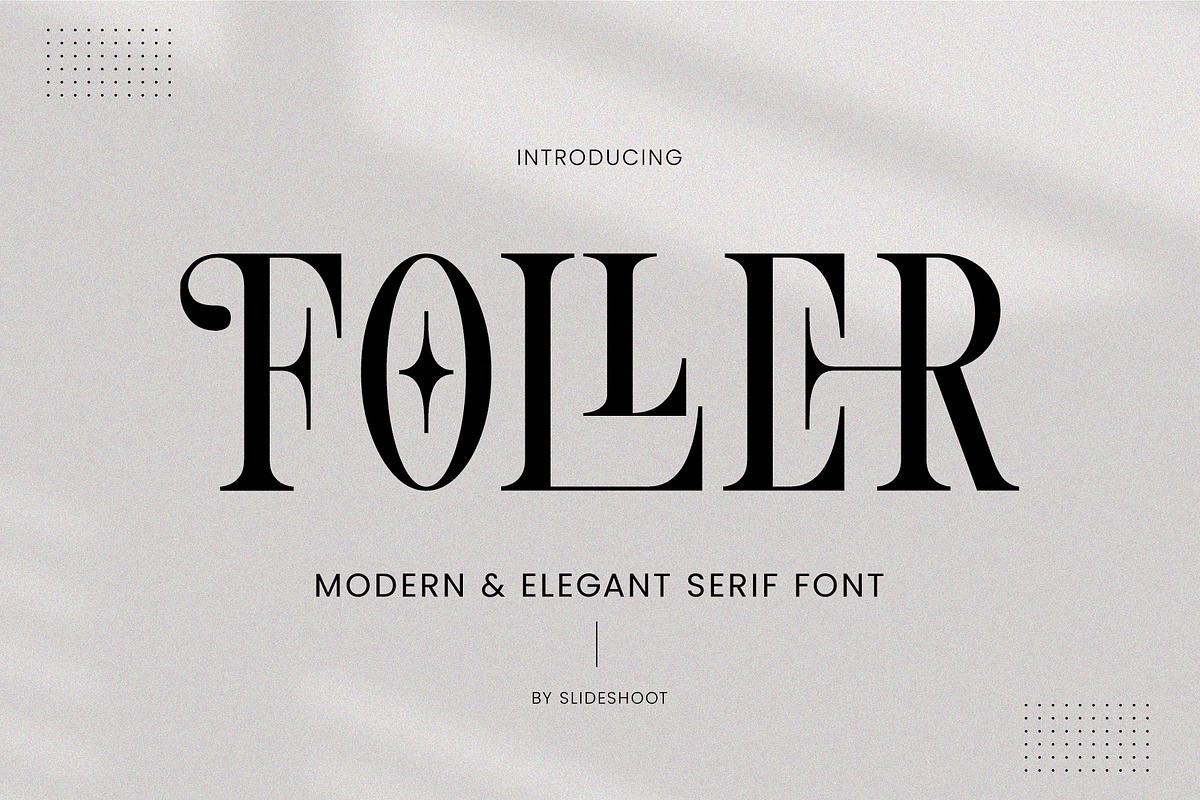
Foller Serif Font Free Download
Foller Serif Font Free Download is a bold and contemporary serif typeface that brings strength, clarity, and style to any design. With sharp serifs, balanced proportions, and a modern edge, Foller is perfect for branding, editorial layouts, packaging, logos, posters, and website headers that require a confident and elegant look.
Its readability and classic structure make it highly versatile for both print and digital use, whether you’re designing for fashion, lifestyle, or corporate visuals. Foller blends tradition with innovation—ideal for making a lasting impression.